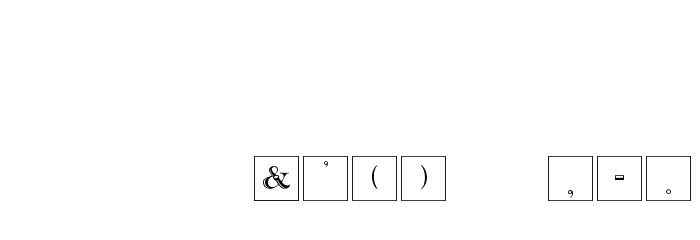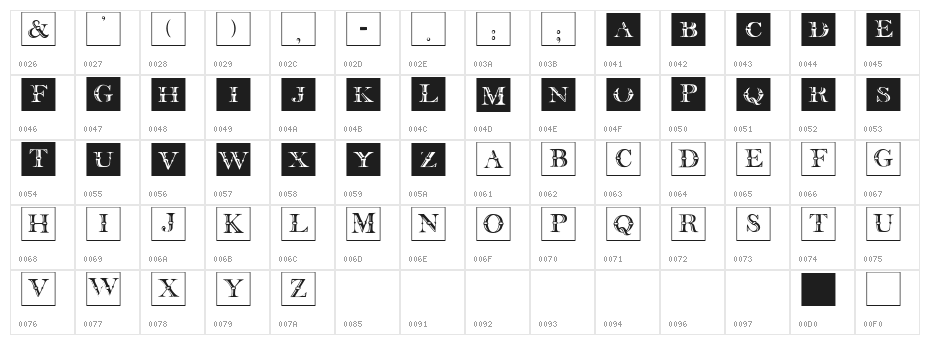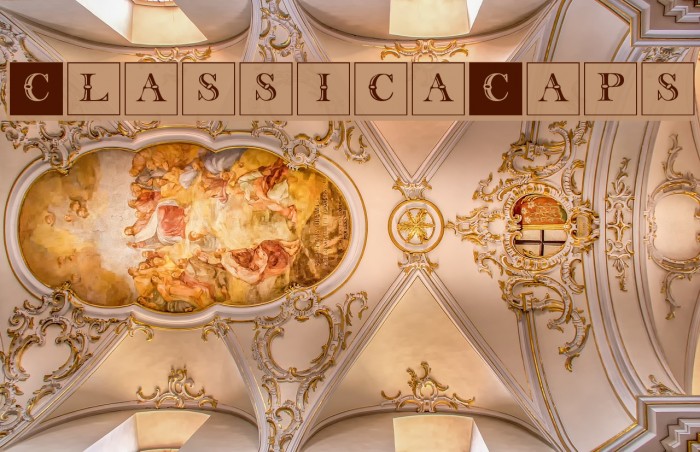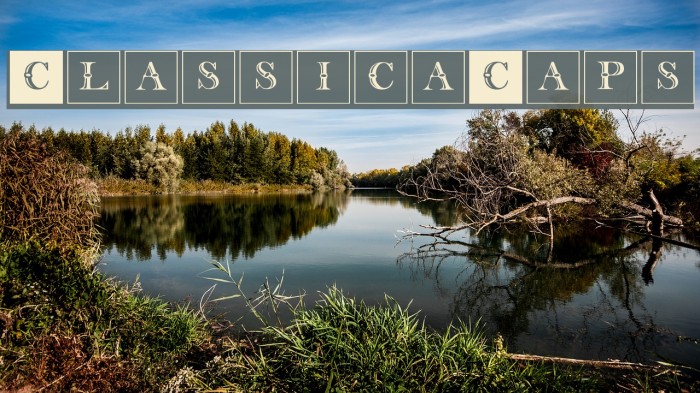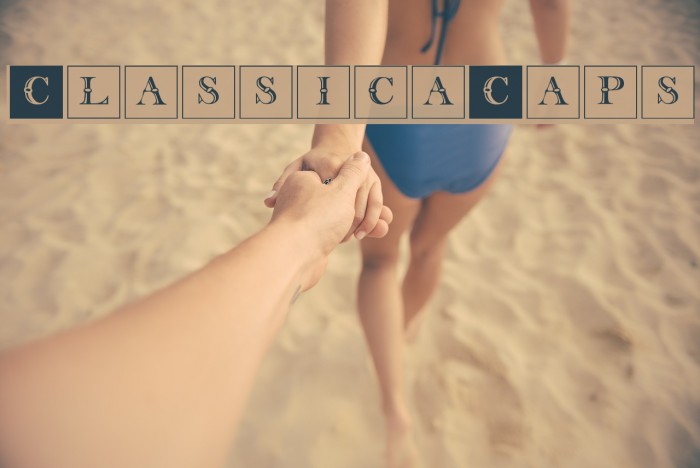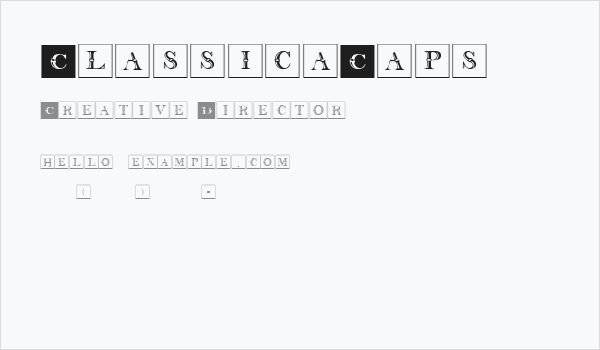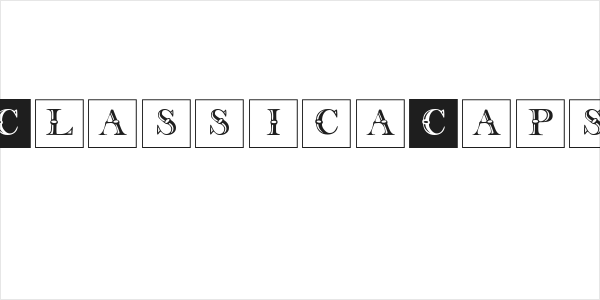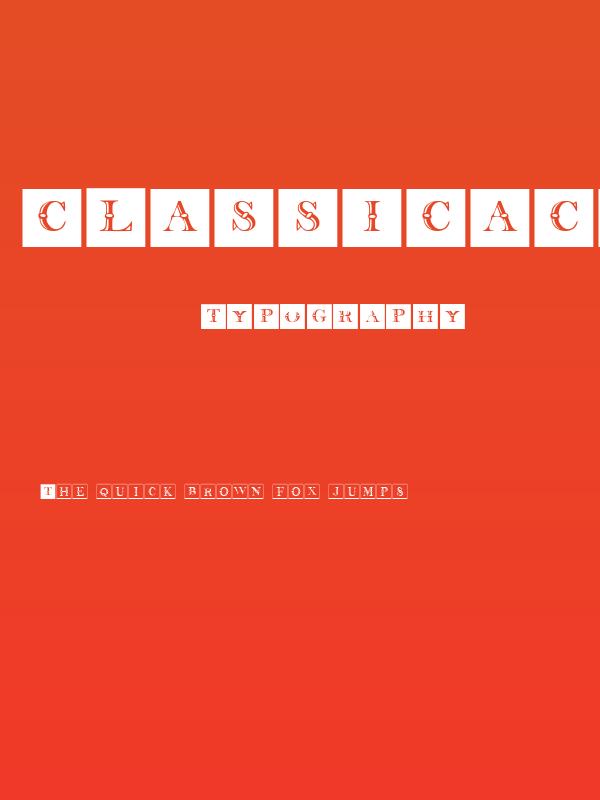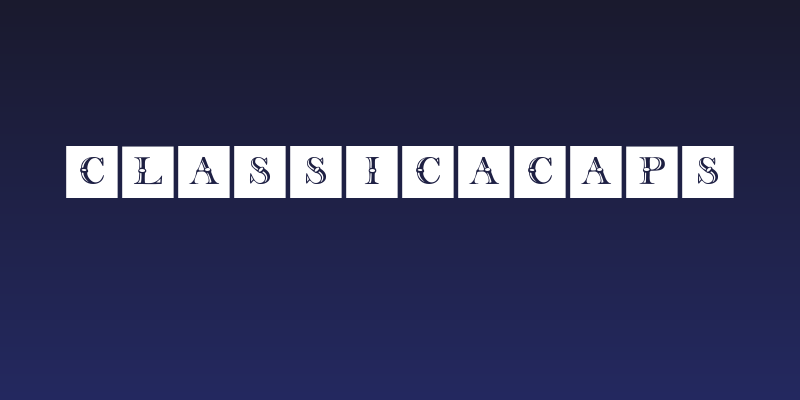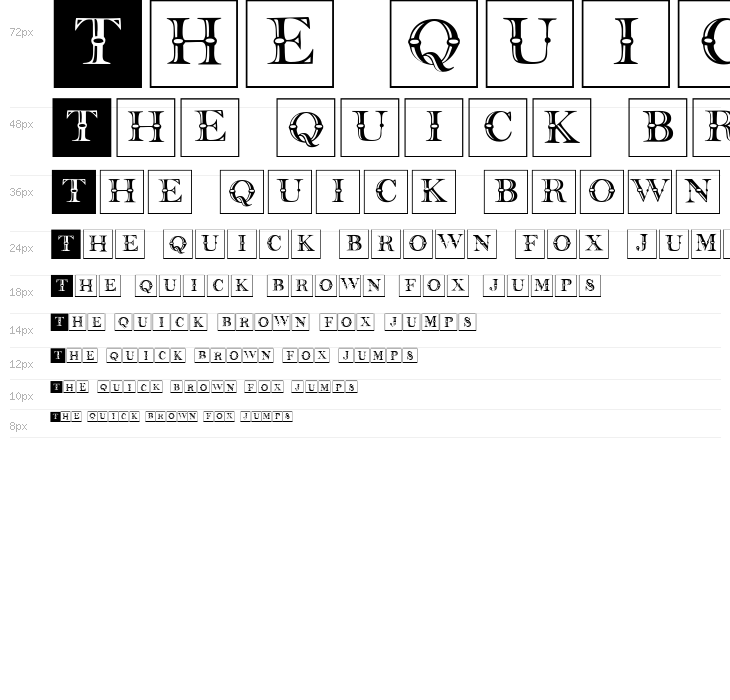
ClassicaCaps Font
ClassicaCaps Description
This font features a bold and decorative style, with each letter enclosed in a square frame. The uppercase letters are highly stylized with intricate details, giving them a vintage and ornate appearance. The characters are evenly spaced within their frames, creating a uniform and structured look. The font includes a limited set of punctuation marks, maintaining the same decorative style. Its unique design makes it suitable for projects that require a touch of elegance and sophistication.
| Proposed Projects | Ideal for vintage-themed posters, invitations, and branding that requires a classic and ornate touch. |